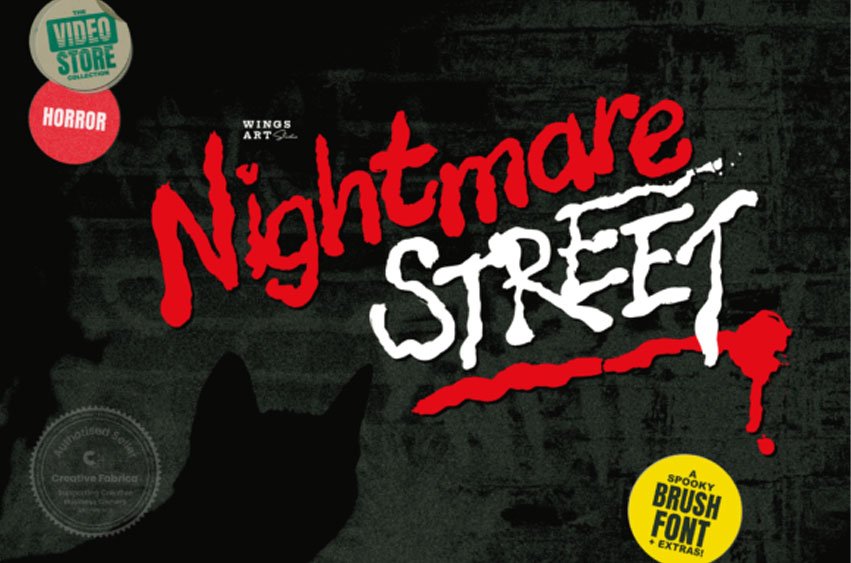
Nightmare Street Font
Nightmare Street Font is a cool, creepy and spooky display font.
Add it to each of your Halloween design or October party and you will love the results.